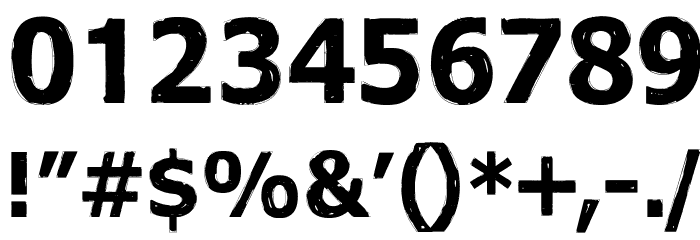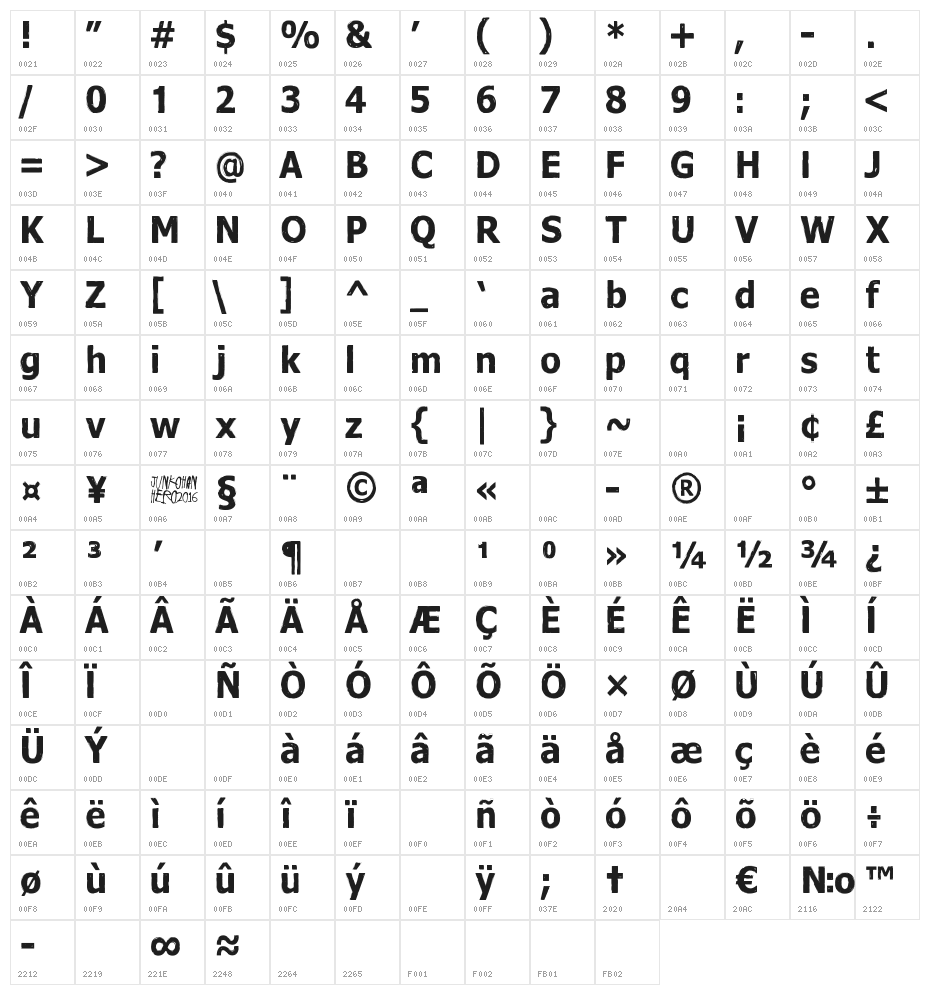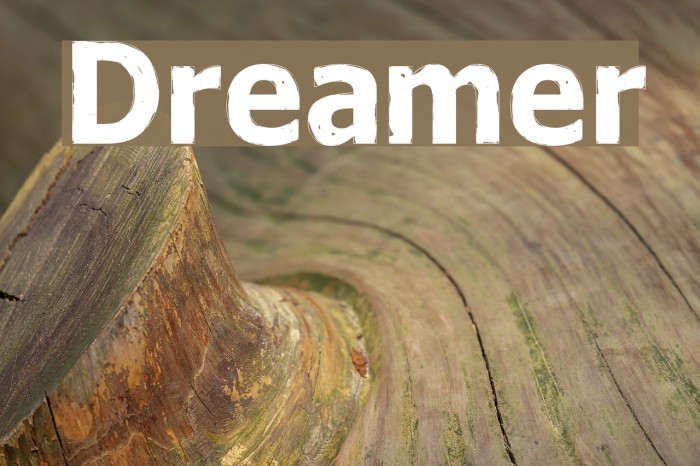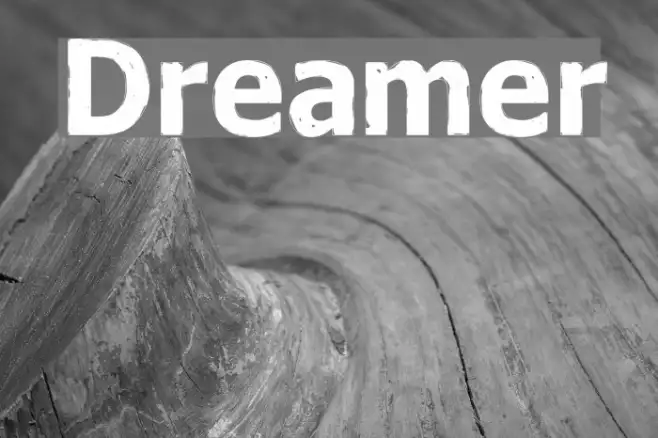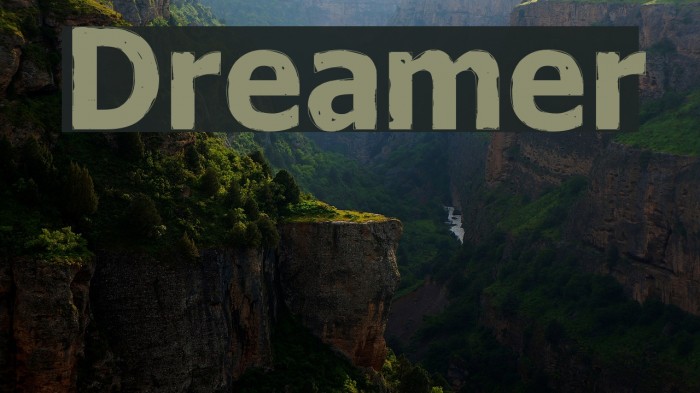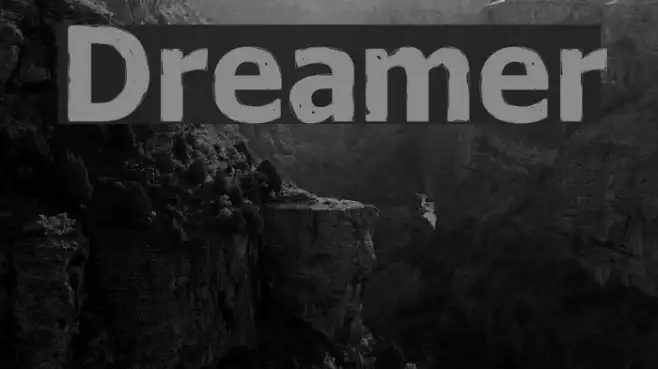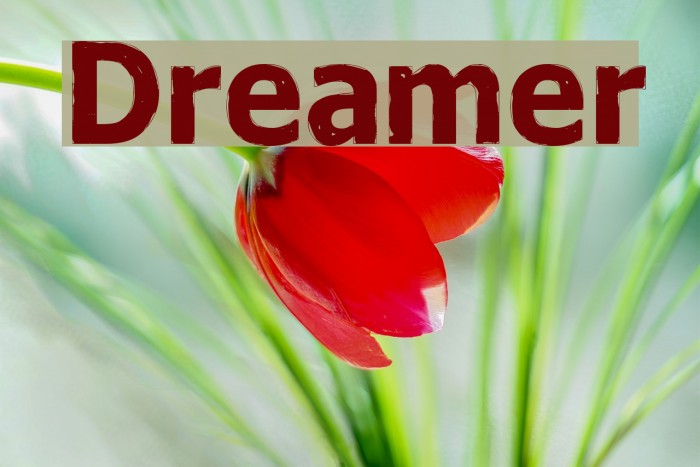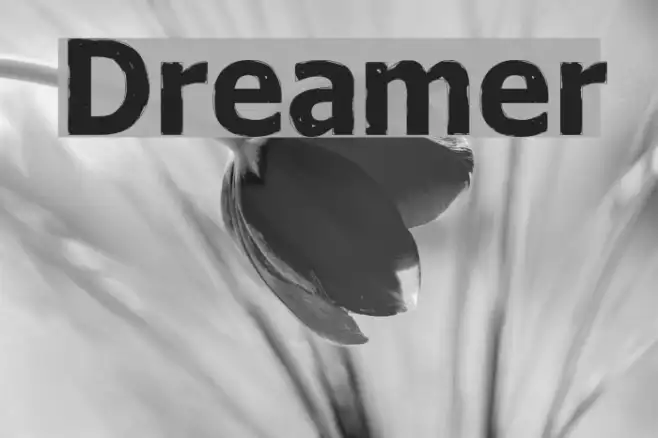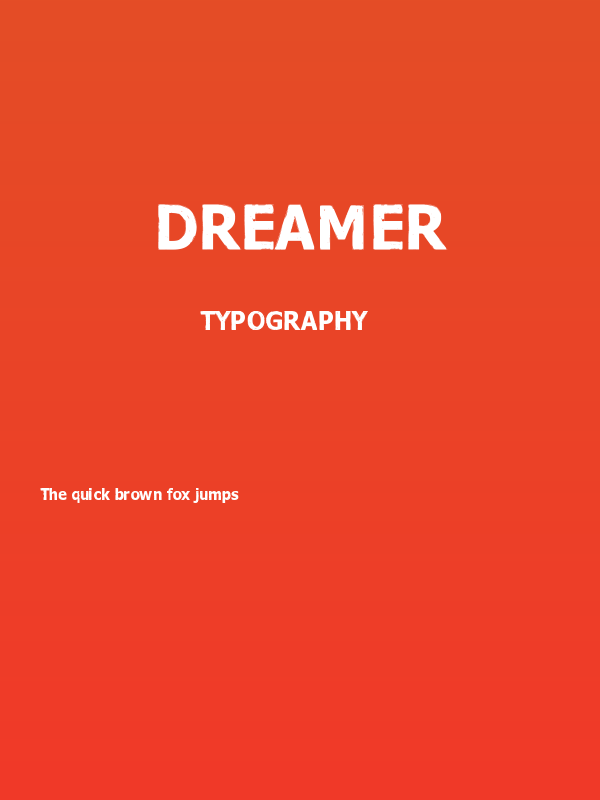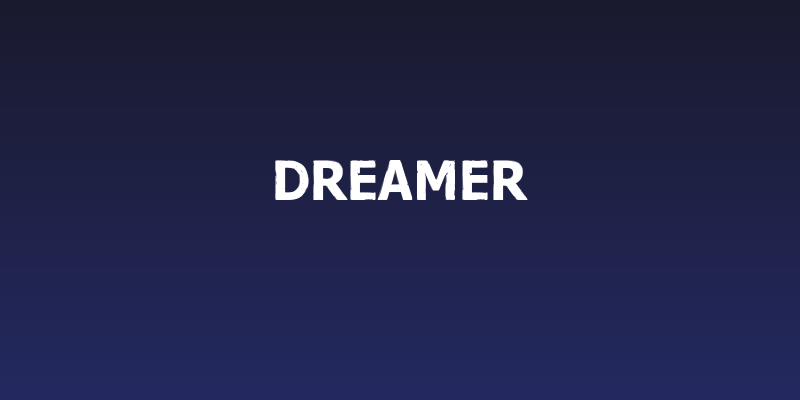
Dreamer Font
Dreamer Description
This font features a bold and robust design with a slightly distressed texture, giving it a vintage and handcrafted appearance. The uppercase and lowercase letters are well-proportioned, with consistent stroke widths that convey strength and stability. The numbers and special characters maintain the same boldness, ensuring uniformity across all glyphs. The font's slightly rough edges add character, making it suitable for projects that require a touch of authenticity and ruggedness. Its clear legibility and strong presence make it ideal for impactful designs.
| Proposed Projects | Ideal for branding, posters, headlines, and any design requiring a bold, vintage aesthetic. |